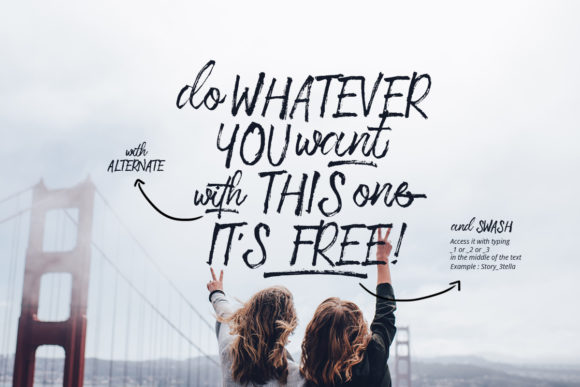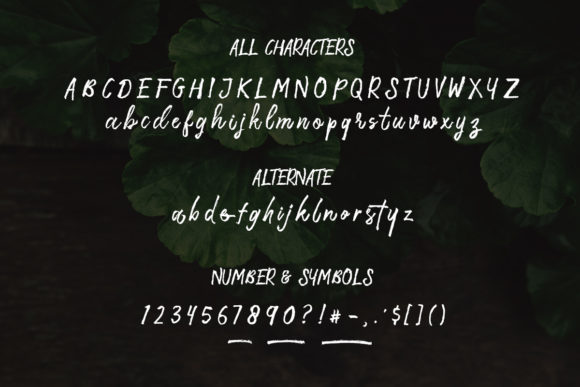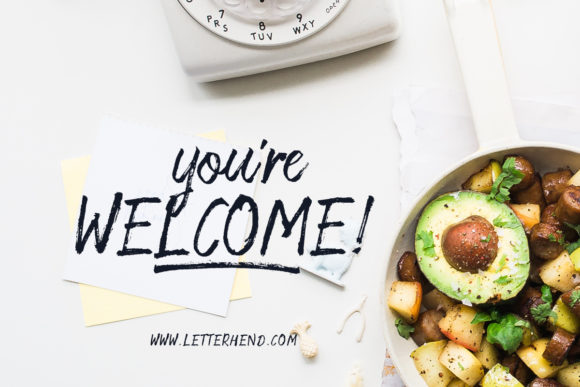
Storytella Font
About Storytella Font
Storytella is a modern, fun script font, created by using a brush pen. Clean and a little bit quirky, this font is the perfect fit for all of your logos, branding, social media, and crafty DIY projects.